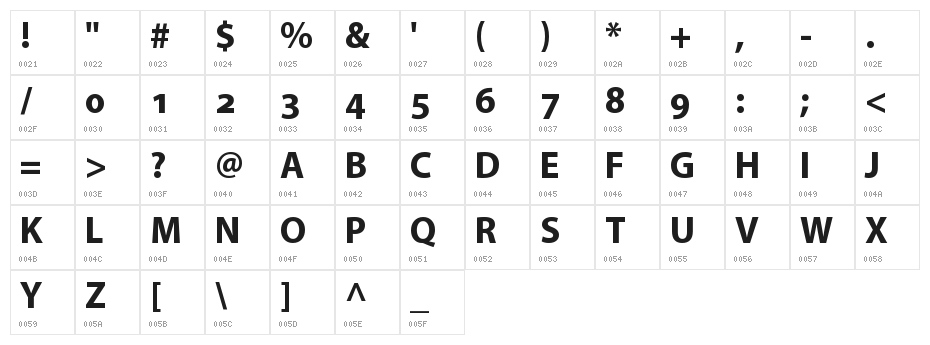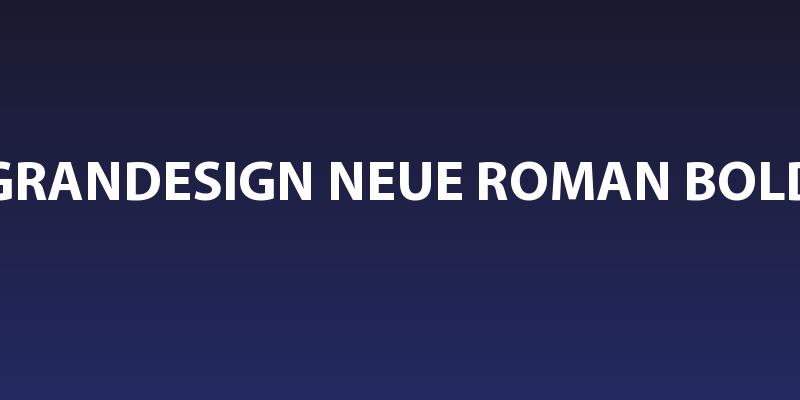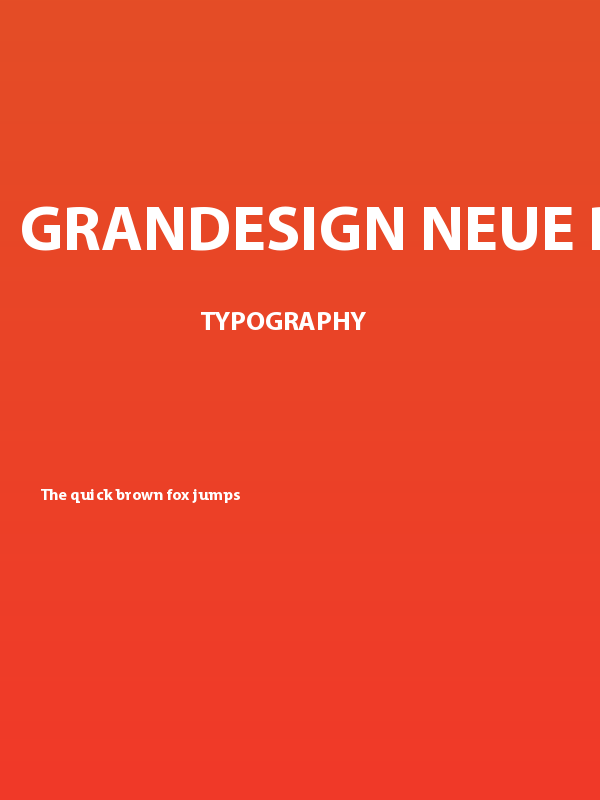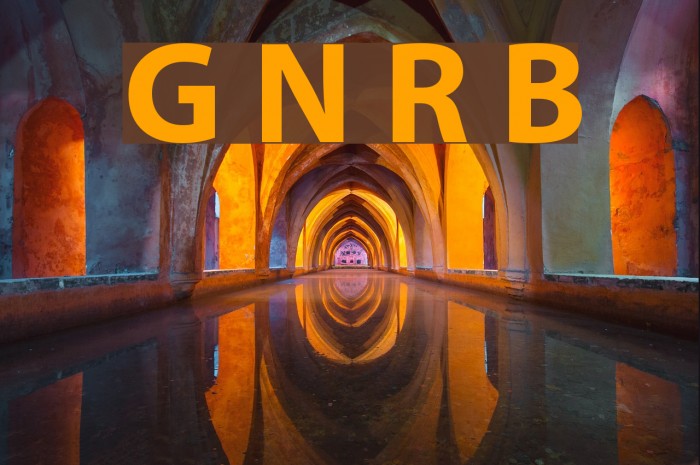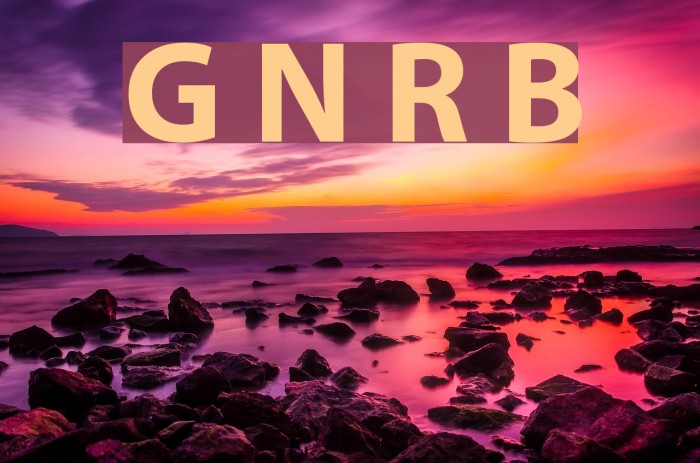
Grandesign Neue Roman Bold Font
| Cas d'utilisation | Headlines, Logos, Branding |
| Projets proposés | Ideal for branding, advertising, headlines, and digital media where a bold statement is needed. |